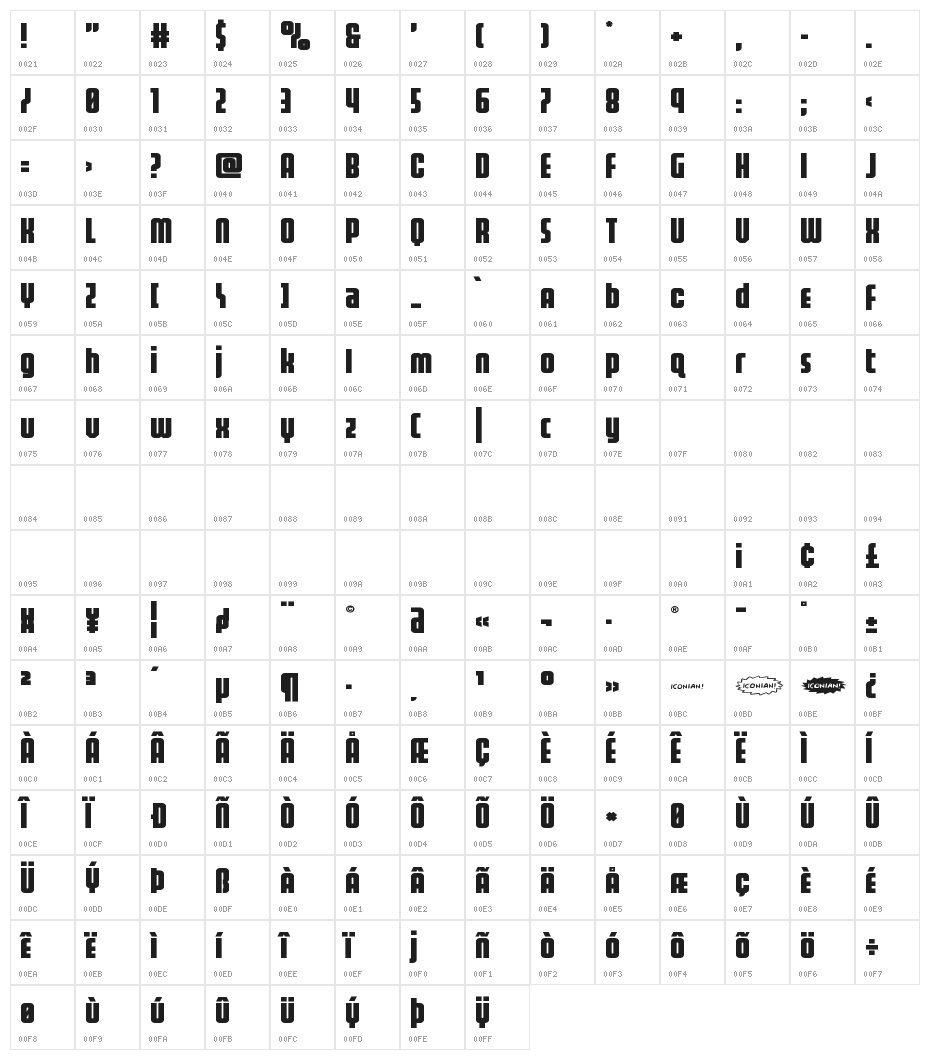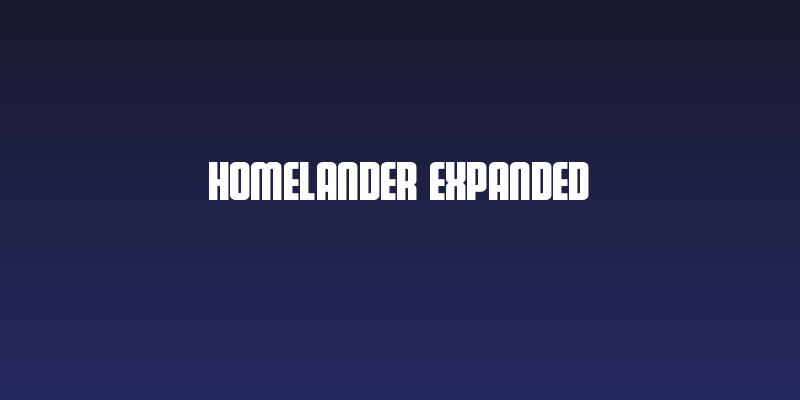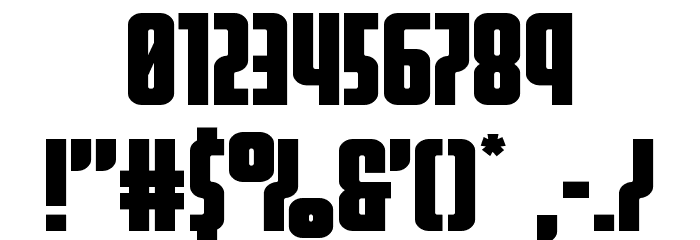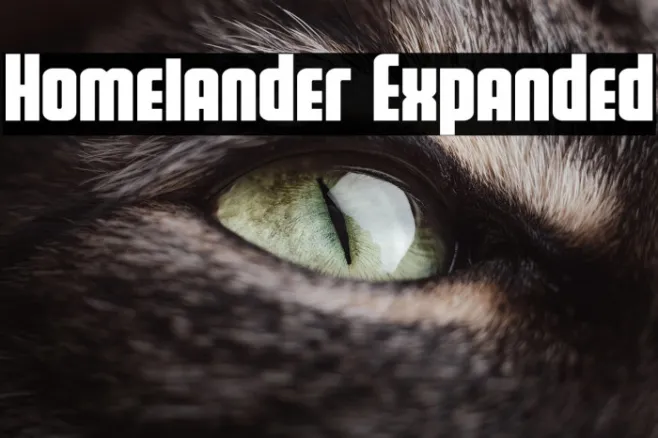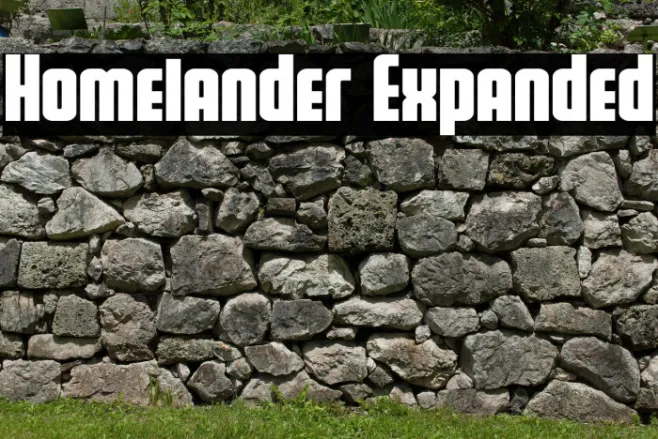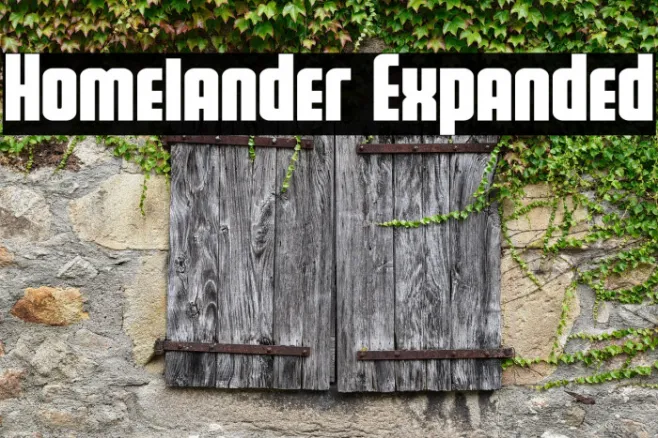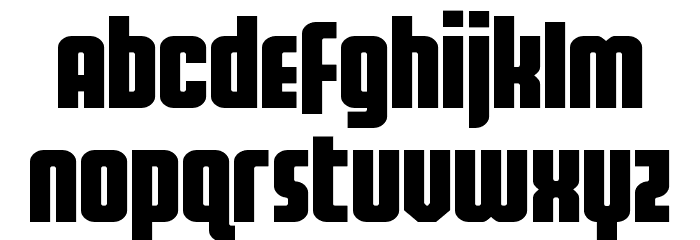
Homelander Expanded Font
Homelander Expanded Description
This font features a bold and impactful design with a strong presence. The characters are uniformly wide, giving it an expanded appearance that commands attention. The strokes are thick and consistent, creating a sense of stability and strength. The uppercase and lowercase letters maintain a uniform width, contributing to a cohesive look. The numbers and special characters are designed to match the boldness of the alphabet, ensuring a harmonious overall appearance. This font is ideal for projects that require a strong visual impact, such as posters, headlines, and branding materials.
| Proposed Projects | Ideal for posters, headlines, branding, and any project requiring a bold statement. |